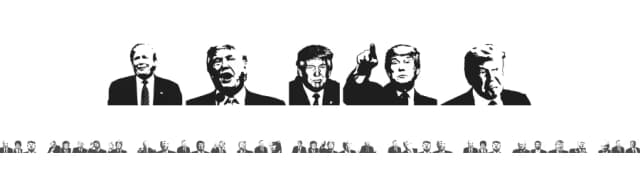
About Trump Font
Trump is a dingbat font designed by Simon Dunford. It includes 54 glyphs, a regular weight, TTF (TrueType) format, and 89 languages. Trump is free to download; check the license details on this page before commercial use. Dingbat fonts like Trump work best for icons, ornaments, bullet points, and decorative accents.
Trump Font is a versatile dingbats font that works for both headings and body text. Pair it with a contrasting sans-serif or serif font to add visual interest and a clear distinction between titles and body copy.